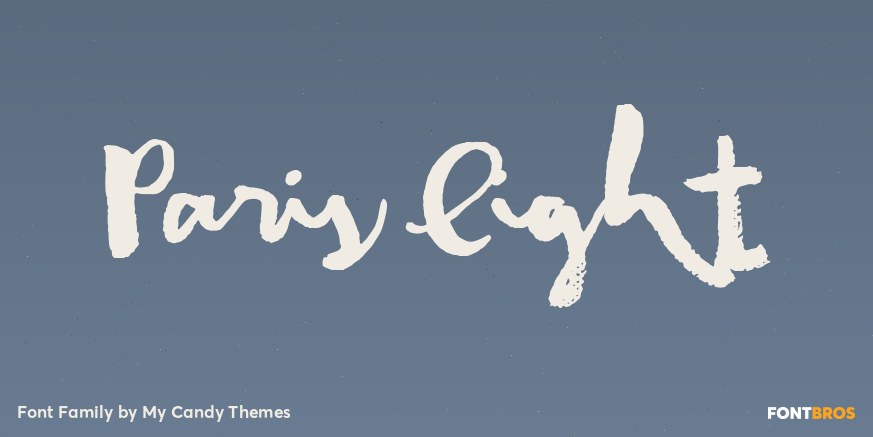
HomeFont BrosHandwrittenParis Light HandwrittenScripts: Casual Paris Light FacebookXPinterestWhatsApp 1 of 1 About Paris Light, abstract, modern, stylish brush typeface. Ready to enrich your design with a smooth and natural hand drawn look or a trendy, eye catching, rough effect.  DOWNLOAD ON FONT BROSThis font is sold and delivered by Font Bros. Font Canyon may earn a commission if you buy through this link. People also explored FighTing Font Gravity Well Thenicle Outline Regular Font Kato Ballines Font Floresta Font Reindeer Font Marryland Font Lawbreaker JNL Font 253 0 TagsParis Light Font Previous articleMilibusNext articleTallulah Signature Regular LEAVE A REPLY Cancel reply Comment: Please enter your comment! Name:* Please enter your name here Email:* You have entered an incorrect email address! Please enter your email address here Website: Save my name, email, and website in this browser for the next time I comment. Personal Use Free Mail Ray Stuff Personal Use Free Read more about this font Travelling Free Brush Personal Use Free Read more about this font Zelega Zenega Personal Use Free Read more about this font Mini Story Personal Use Free Read more about this font BLOG Free vs Paid Fonts: Why Investing in Premium Fonts Is Worth It Free vs Paid Fonts: Why Premium Fonts Are Worth It in 2025 The debate of free vs paid fonts continues in the design world. While... Top 7 Google Fonts Alternatives for Faster and Privacy-Friendly Web Design (2025) Free Fonts Risk: Why Free Fonts Can Be Dangerous for Designers Fonts That Capture the Spirit of New York City